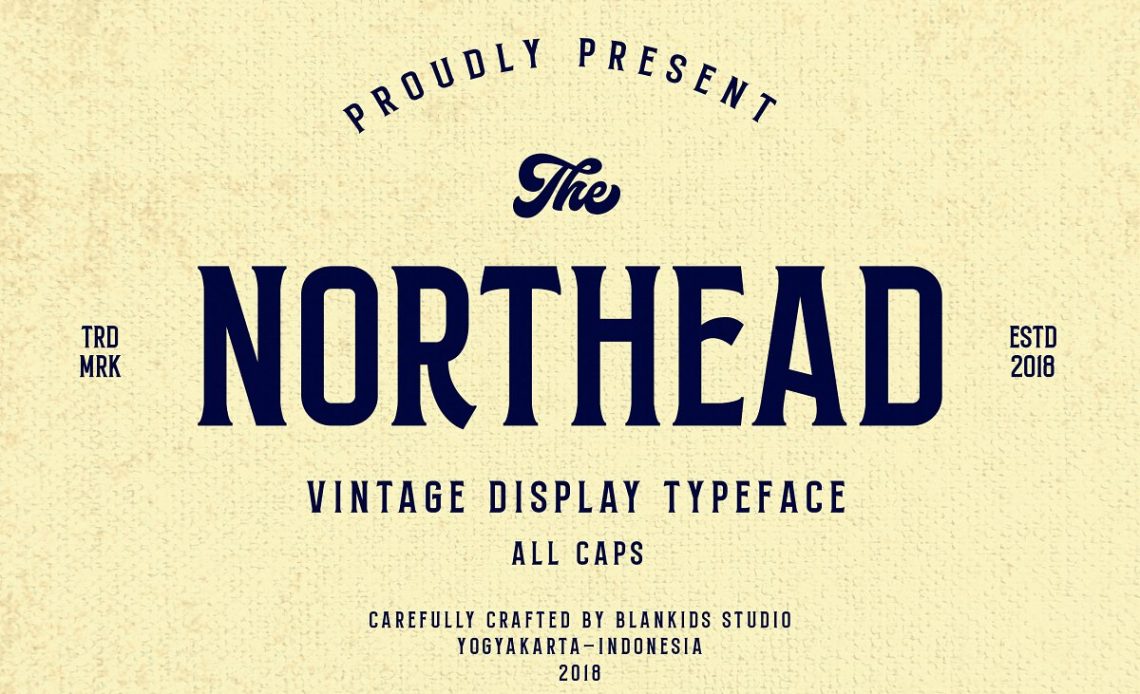
Looking for the best font for your poster title? Look no further than Northead Font, the latest addition to our vintage serif font family, created by renowned designer Bangkit Setiadi. This all-caps font is perfect for branding, packaging, posters, book covers, flyers, t-shirt designs, and more. Inspired by vintage beer labels and signage, Northead Font is sure to make your design stand out.
One of the great things about Northead Font is its multilingual support. It includes a variety of accent characters, allowing you to create designs in multiple languages. You can even access all of the alternate glyphs with our handy guide, available at http://adobe.ly/1m1fn4Y.